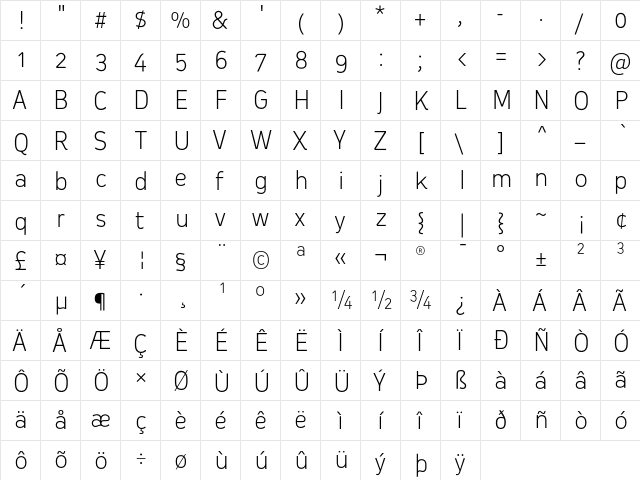
Oceania-Light Regular
Design Context for Oceania-Light Typeface
Oceania-Light offers clean, dependable letterforms without strong stylistic allegiance, making it a practical choice for designers who need flexibility. Its slender proportions lend an understated elegance to any composition.
Pro Tip: Use Oceania-Light in both headline and body roles to test its range before committing to a single application.